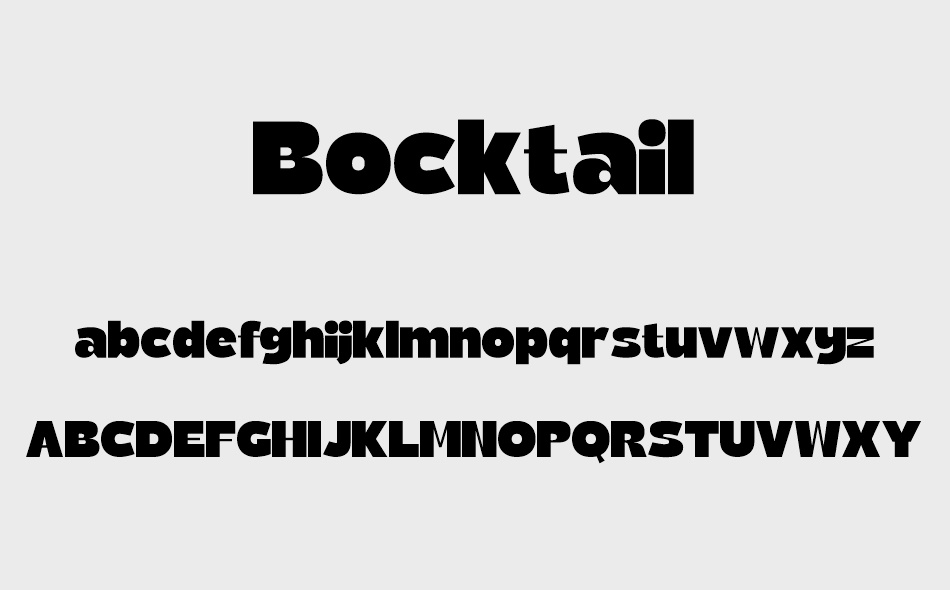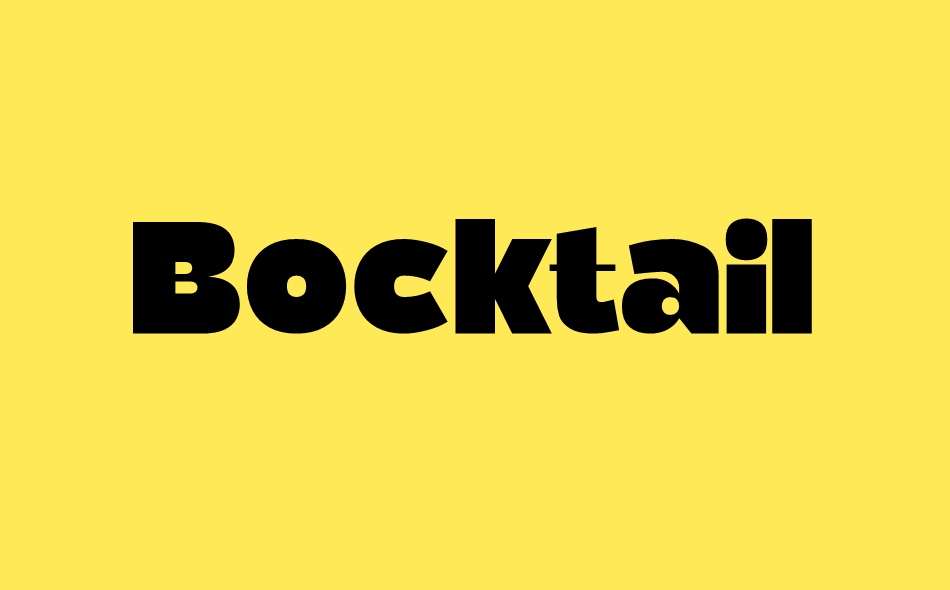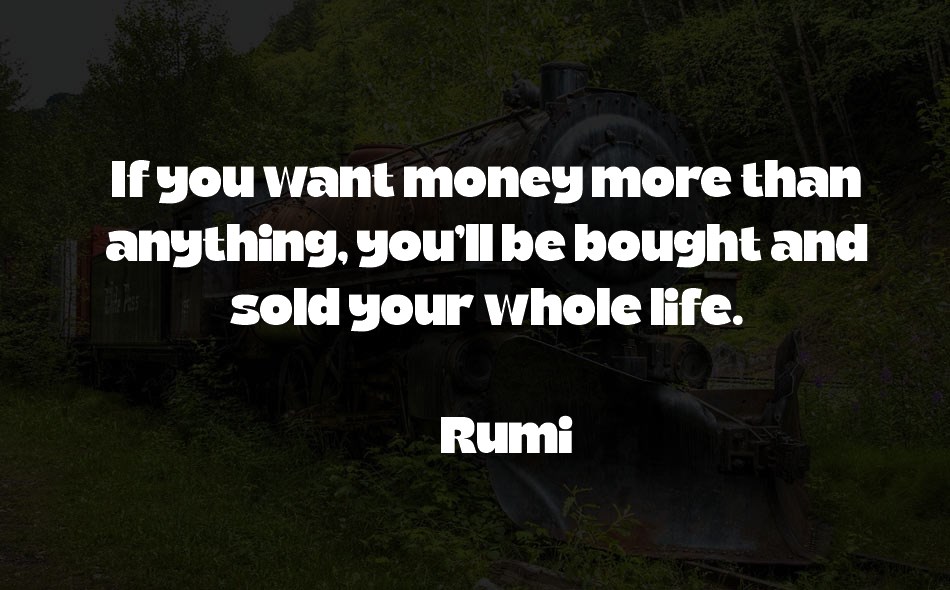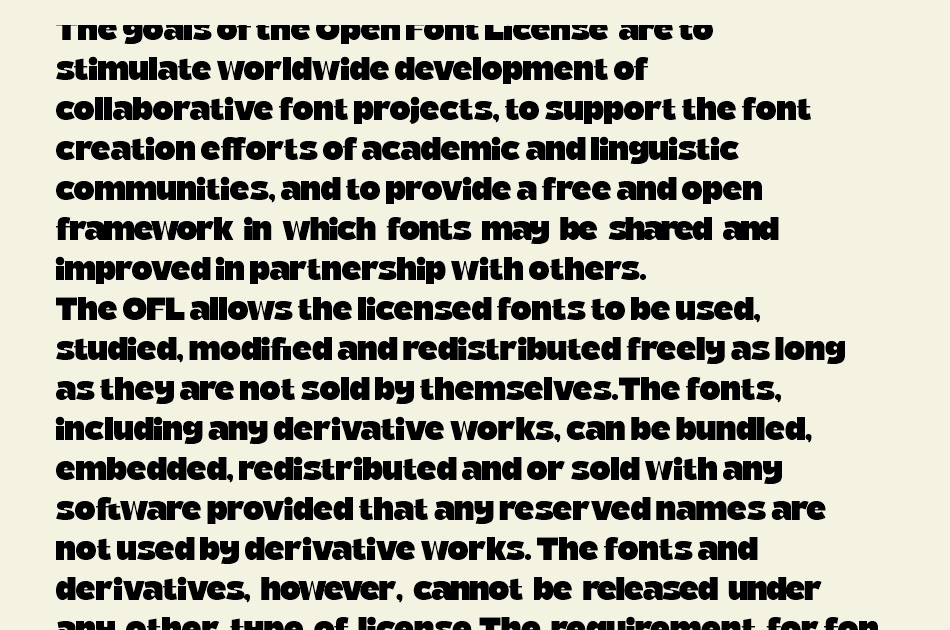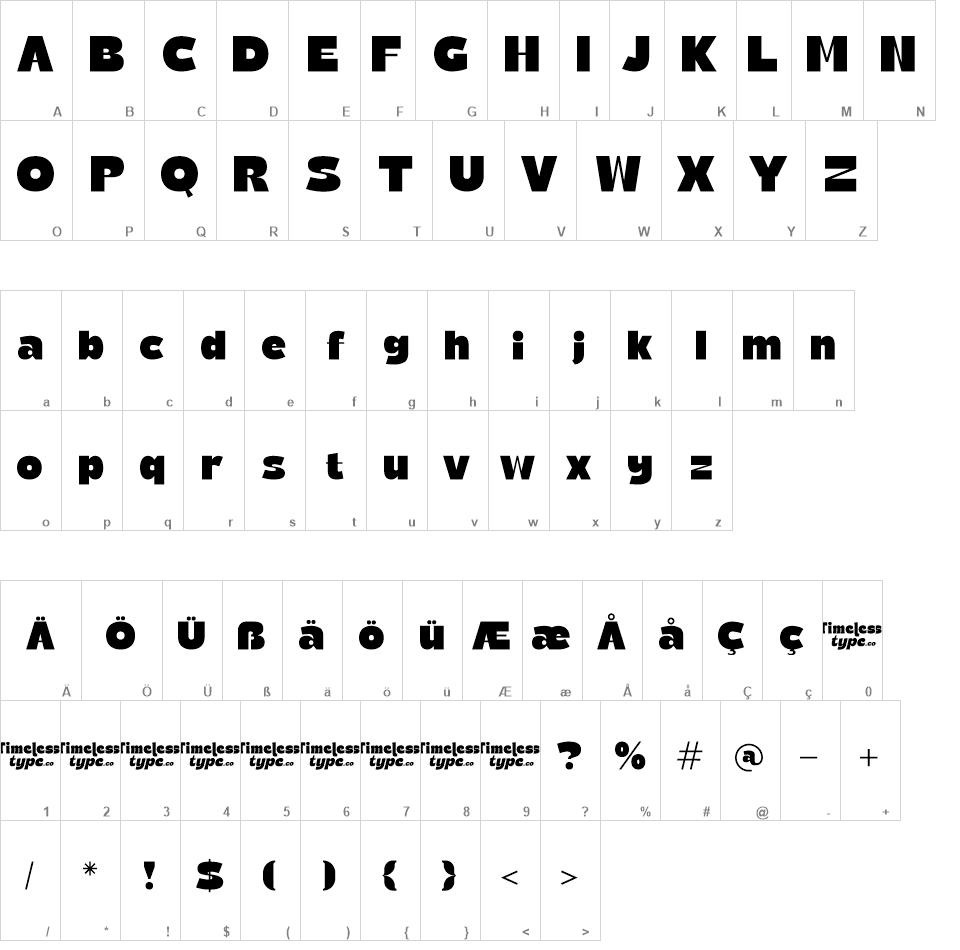
Bocktail font
Bocktail - Sans Serif Display
Capture immediate attention with the unapologetic boldness of Bocktail - Sans Serif Display. This unique typeface channels a vibrant, retro aesthetic, combining heavy weights and subtly rounded terminals for a look that is both nostalgic and supremely modern. Designed specifically for high-impact headlines, its chunky presence demands readability while injecting a playful, memorable character into any layout. Bocktail - Sans Serif Display is the definitive choice for designers looking to blend vintage flair with commercial precision.
Unlock unparalleled typographic creativity using its comprehensive suite of OpenType features. With 388 total glyphs, including 12 carefully crafted ligatures and 46 stylistic alternates, Bocktail - Sans Serif Display offers exceptional customization potential. These stylistic variations allow for dynamic word shaping, ensuring that every headline feels bespoke and visually engagingan essential tool for custom logo design and editorial mastheads requiring extreme visual dynamism.
Expand your brand's reach effortlessly across international borders. With its extensive multilingual support, Bocktail - Sans Serif Display adapts seamlessly across global markets, making it incredibly versatile for international projects. This ensures that your bold, distinctive voice is consistently delivered, regardless of geography or language, positioning Bocktail - Sans Serif Display as a truly global display solution for ambitious brands.
Elevate your design projects immediately with this versatile headline typeface. Bocktail - Sans Serif Display is perfect for creative packaging, large-scale posters, vibrant social media campaigns, music and festival branding, and any endeavor requiring an authentic mid-century modern or bold display treatment. It is the go-to font for brands prioritizing fun, distinctive visual identity over corporate austerity.